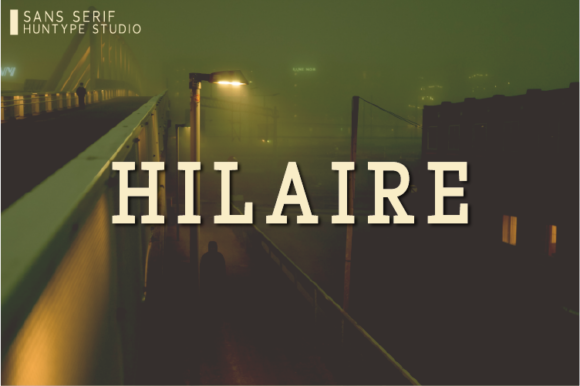
Introducing Hilaire Font, the epitome of elegance and professionalism, meticulously designed by the renowned Huntype foundry. This exceptional serif font exudes a timeless charm that is sure to elevate your designs to new heights.
With its clean, bold strokes and alluring curves, Hilaire Font emanates sophistication and authority. Its carefully crafted characters seamlessly blend traditional aesthetics with a modern edge, making it the ideal choice for any project that demands a touch of class and distinction.
Immerse yourself in the world of Hilaire Font and discover a symphony of typographic possibilities. Its versatility knows no bounds, lending itself effortlessly to a wide range of applications, from striking logos and captivating headlines to elegant branding materials and polished web designs. Whether you're a seasoned designer or just starting your creative journey, Hilaire Font will become an indispensable tool in your font arsenal.
Unleash your creativity and let Hilaire Font guide you towards design excellence. Its intuitive nature and user-friendly charm make it a joy to work with, ensuring a smooth and enjoyable experience. As you mold and shape your words, you'll marvel at how effortlessly Hilaire Font transforms your ideas into visually captivating masterpieces.
Join the countless designers who have already succumbed to the allure of Hilaire Font. Experience the difference it can make in your designs and witness the transformative power of truly remarkable typography. Hilaire Font is more than just a font; it's an investment in your creative potential, an open door to a world of design possibilities.